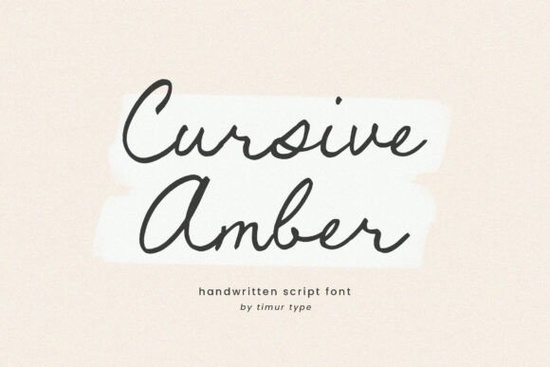
If you are looking for a script typeface that feels personal and approachable, the Cursive Amber Font by Timurtype Studio is a great option. It mimics natural penmanship with smooth, flowing strokes and elegant letter connections. Whether you are designing wedding invitations, crafting a new logo for a small business, or creating print-on-demand products, this handwritten script adds a warm, human touch to your work.
What makes this handwritten script stand out?
The design focuses on graceful curves and a fluid style that reads easily while still feeling highly personal. Unlike rigid digital typefaces, it captures the slight variations you would see in actual handwriting. Designers appreciate how the varying stroke widths give it an authentic, hand-drawn feel without looking messy. This balance of sophistication and casual charm makes it highly versatile. You can use it for elegant wedding suites, or pair it with a clean sans-serif for a modern bakery logo. It fits perfectly into the script fonts category because it prioritizes readability without losing its artistic flair.
How can I use it for my small business or craft projects?
Small business owners and crafters often need typography that builds trust and feels welcoming. Here are a few practical ways to apply this typeface to your daily work:
- Wedding and Event Invitations: The elegant connections work beautifully for couple's names, dates, and menu cards.
- Brand Logos: It gives boutique shops, cafes, and beauty brands a stylish, approachable identity that customers remember.
- Print-on-Demand Apparel: Use it for inspirational quotes on t-shirts, mugs, or tote bags where a personal touch sells much better than standard block letters.
- Social Media Graphics: It stands out in Instagram stories and Pinterest pins for lifestyle, coaching, and wellness businesses.
Additionally, the typeface supports multilingual characters. This means you can confidently design for a broader audience without worrying about missing accents or special characters in various European languages.
How does it pair with other typefaces?
Script fonts need breathing room. The best way to use this typeface is to pair it with a simple, clean sans-serif or a classic serif for your body text. This creates a visual hierarchy where the script draws the eye to the main message, while the secondary font keeps the details easy to read.
Quick tips before you start designing
- Adjust tracking: Give the letters a little extra space when using it in all-caps or for short headings to improve overall readability.
- Watch the swashes: If the font includes alternate swashes, use them sparingly at the beginning or end of a word to avoid visual clutter.
- Test in context: Always print a physical proof or view your design at 100% zoom on your screen to ensure the fine strokes hold up at your intended size.
Take a few minutes to experiment with the ligatures and alternate characters in your design software. Finding the right combinations will help you create unique, custom lettering for your next client project or personal craft.